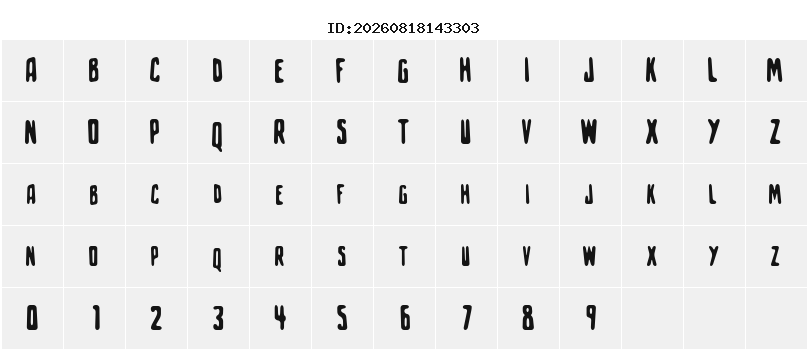
Slowhand Preview
• Font Name: Slowhand
• Full Font Name: Slowhand
About Slowhand.ttf
Slowhand.ttf is a modern, elegant sans-serif font designed for ultimate readability and visual harmony. Perfect for branding, headlines, web design, and print materials.